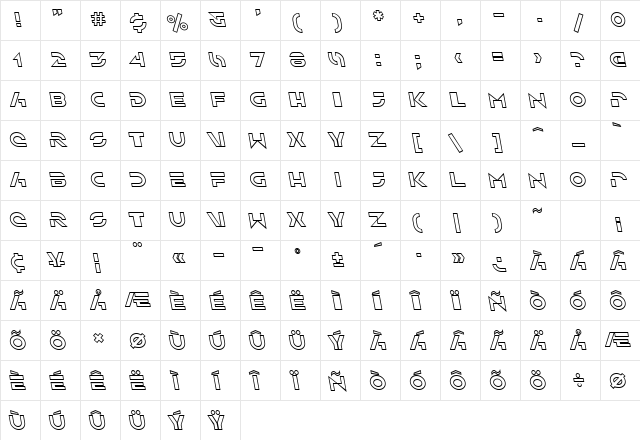
SF Solar Sailer Outline Italic
Design Context for SF Solar Sailer Outline Typeface
SF Solar Sailer Outline is built around its visual character rather than neutral utility — its distinctive forms are designed to make an impression at display sizes. Its italic angle brings a sense of urgency and motion to the letterforms.
Font Pairing: Pair with a clean neutral sans-serif for body copy to let SF Solar Sailer Outline's character lead without overwhelming the composition.
Pro Tip: Use SF Solar Sailer Outline exclusively at display sizes — it was designed to be seen, not read at length. Let a neutral companion handle body copy.